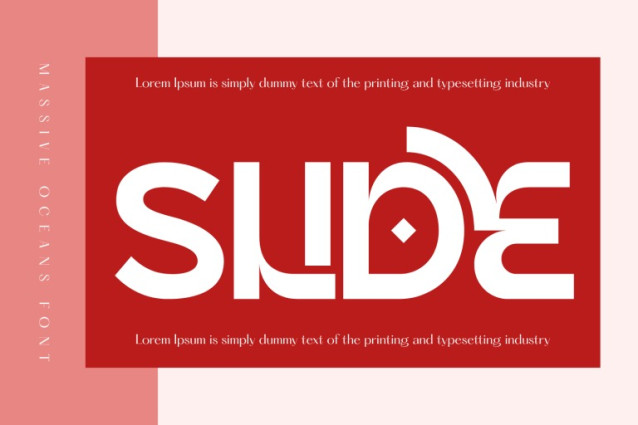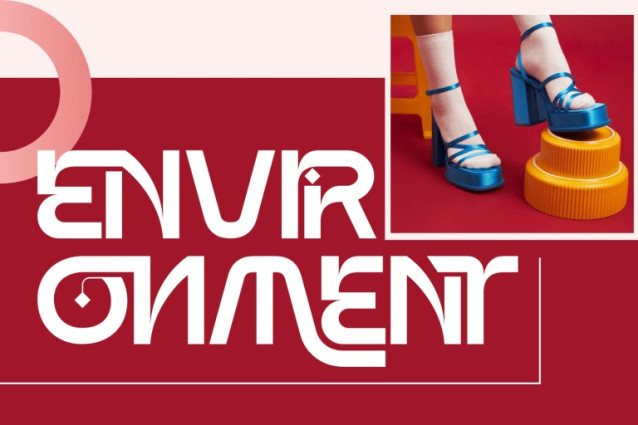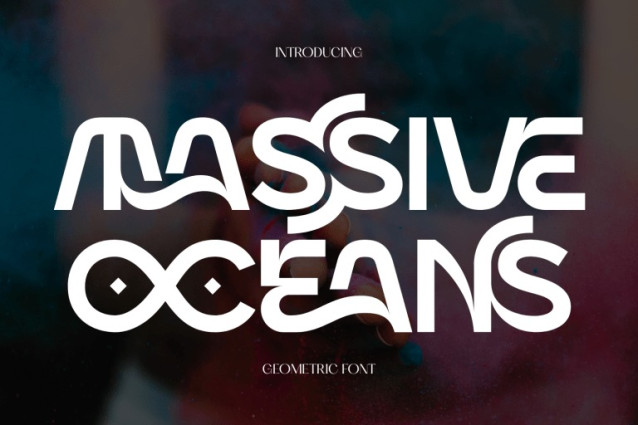
MASSIVE OCEANS FONT
MASSIVE OCEANS – FUTURISTIC FONT is a modern futuristic display sans-serif font designed with a bold geometric structure and unique experimental details. Combining smooth curves with sharp cuts, this typeface delivers a clean yet dynamic appearance that immediately captures attention. The letterforms feature creative modifications and subtle connections that create a sense of flow and movement, giving the font a distinctive and forward-thinking personality. Its balanced proportions and minimal aesthetic make it highly versatile while still maintaining a strong visual identity.
🔤Features:
Uppercase & Lowercase Letters
Around 100 Special Ligatures & Alternates
Accented Characters for multilingual support
🔤About 100 ligatures combined with Stylistic Alternates Font:
AC AD AL AN AR AS AT AU AV BE CA CE CH CO CT DE DI EA EC ED EE EL EM EN EP ER ES ET FE FO FR GE HA HE HI HO IE IC IL IN IO IR IS IT JU KE LA LE LI LL LO LY MA ME MI NC ND NE NG NO NT NS OC OF OM ON OO OP OR OT OU OW PA PR RA RD RE RI RO RS RT SE SH SI SO SS ST TA TE TH TI TO TR TT UM UN UR VE WI WO